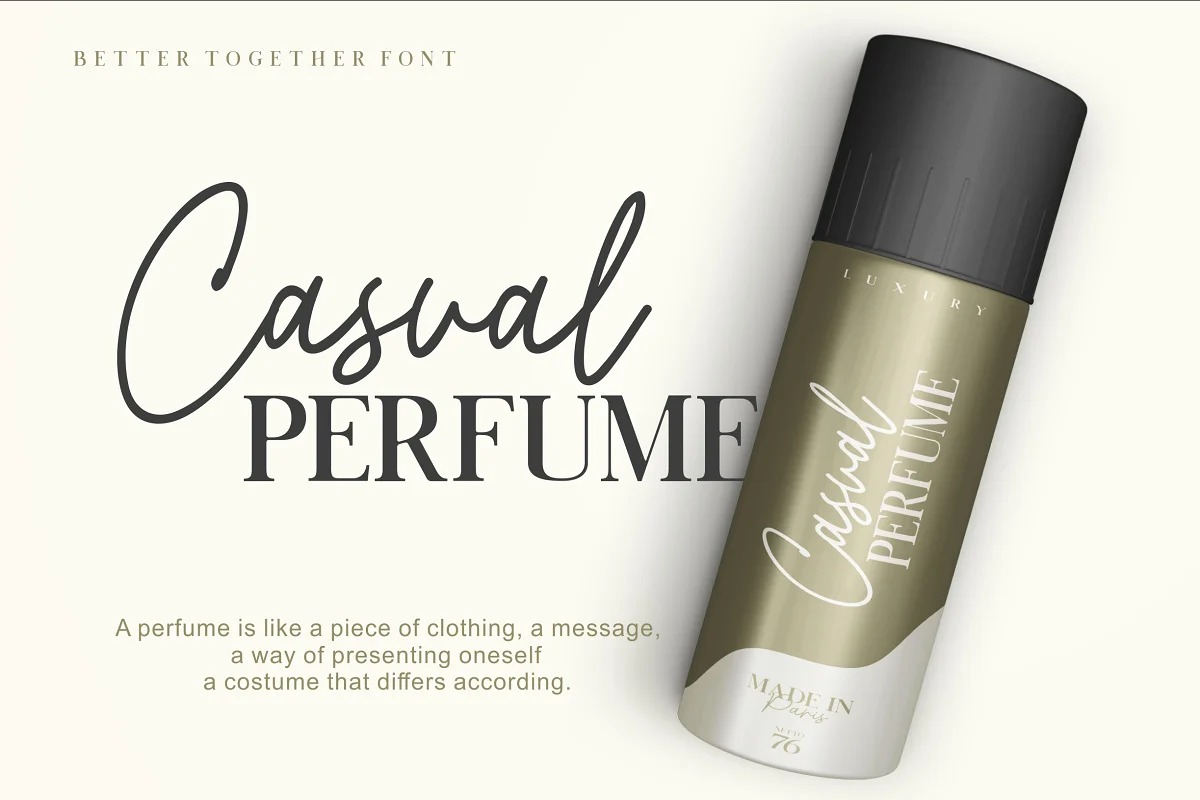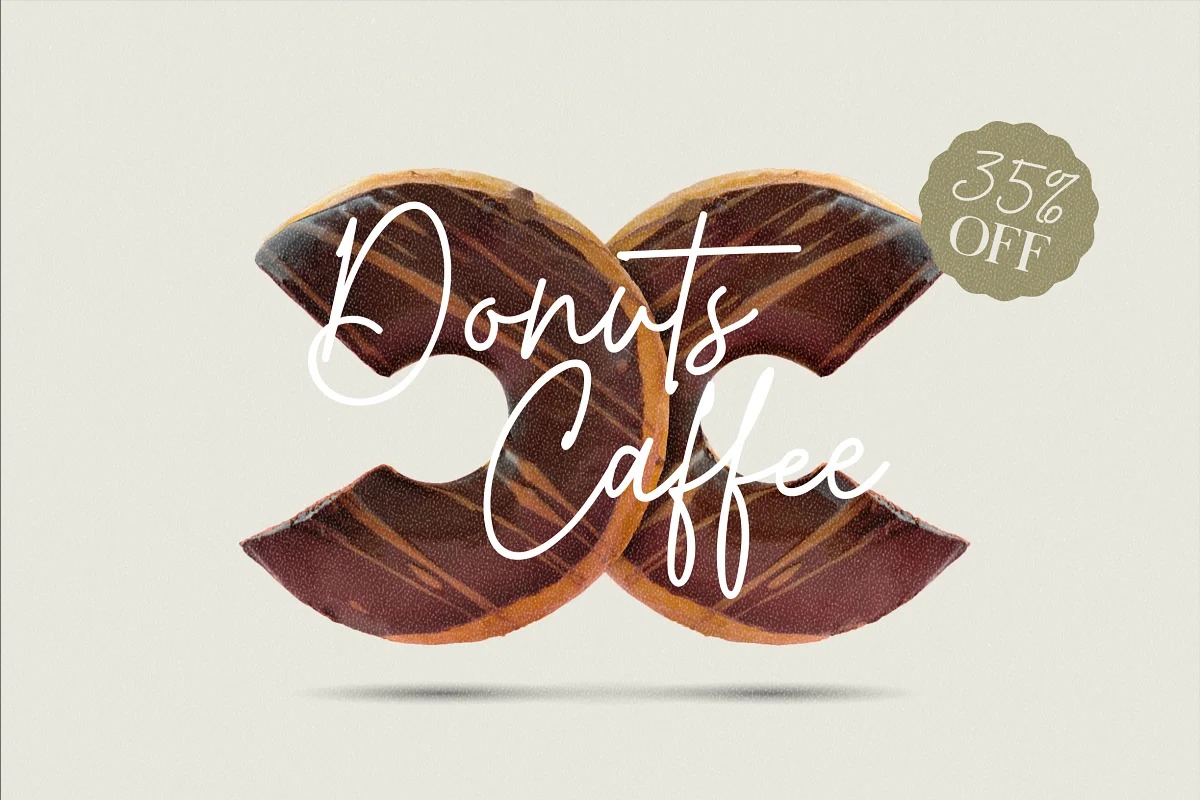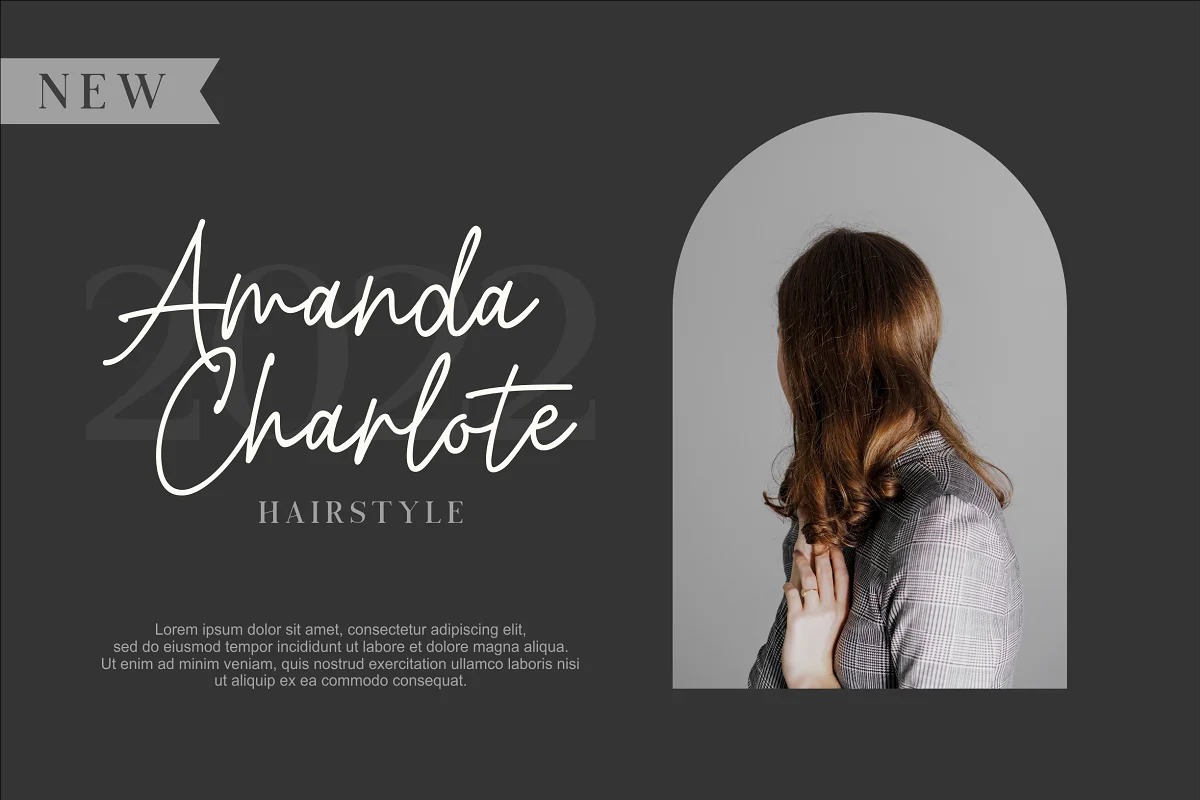
Better Together Handwritten Font
This font is a sweet handwritten script. Made from font designer named Vilogsign. This type of font perfectly made to be applied especially in Branding, and the other various formal forms such as invitations, labels, logos, magazines, books, greeting / wedding cards, packaging, fashion, make up, stationery, novels, labels or any type of advertising purpose. This font is very amazing with Arternative, ligature, and multilingual support to complete your need.